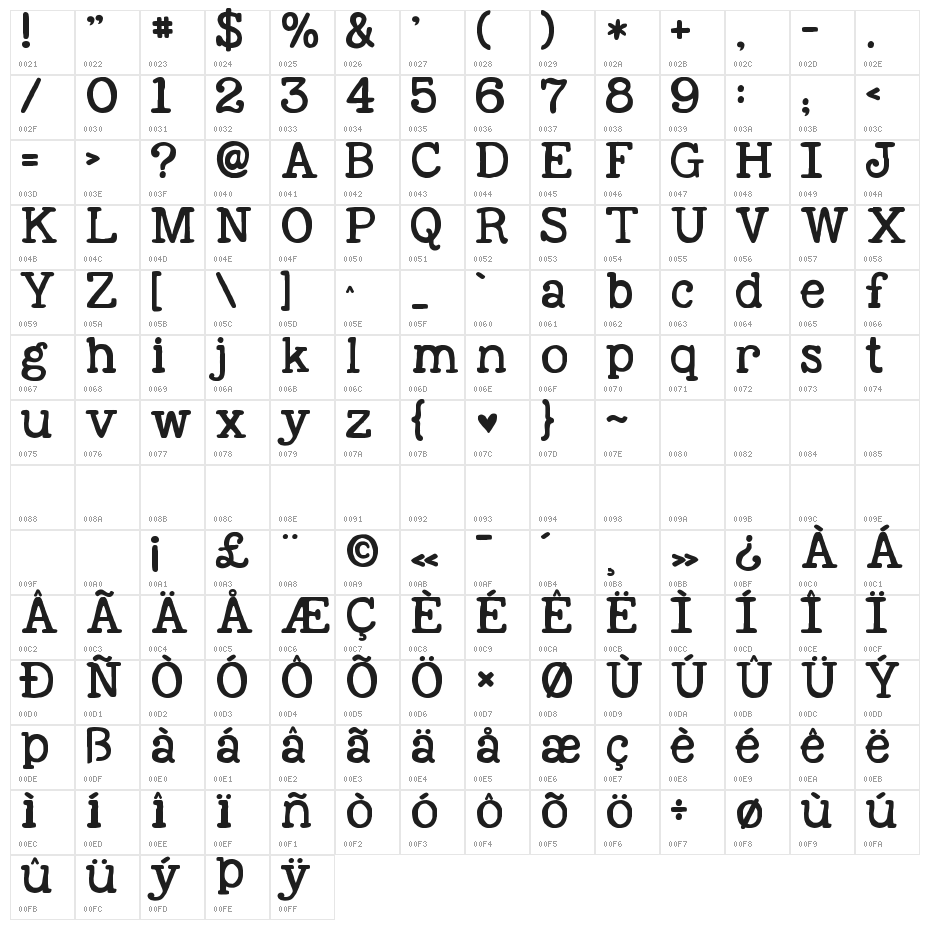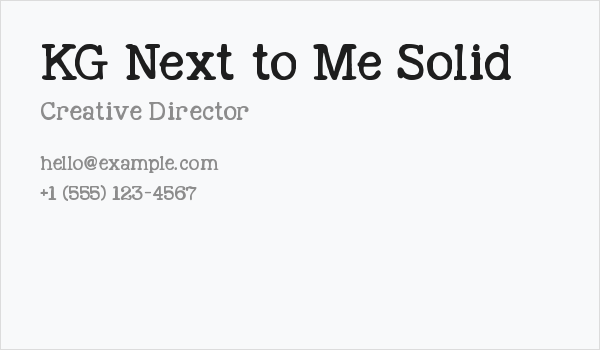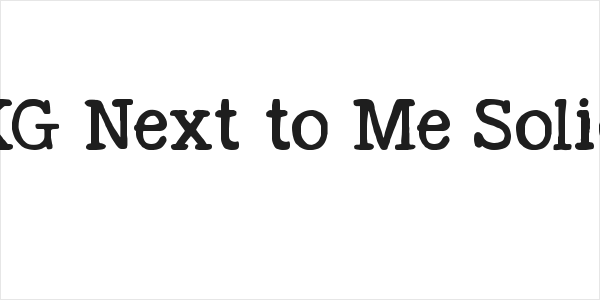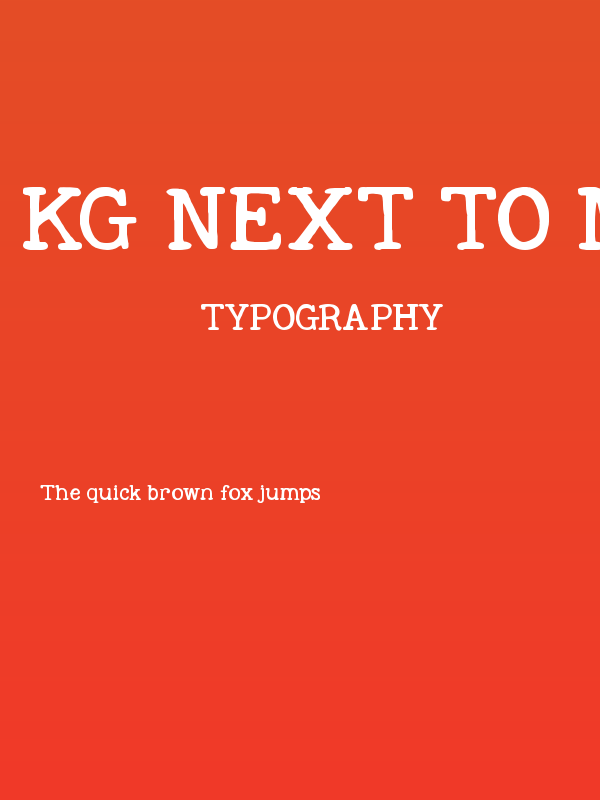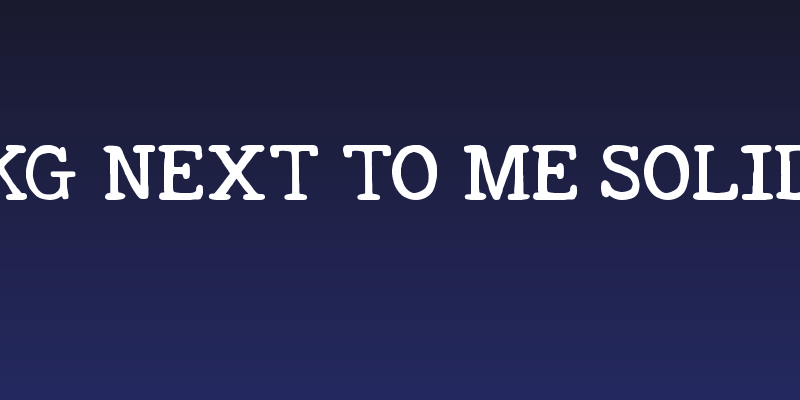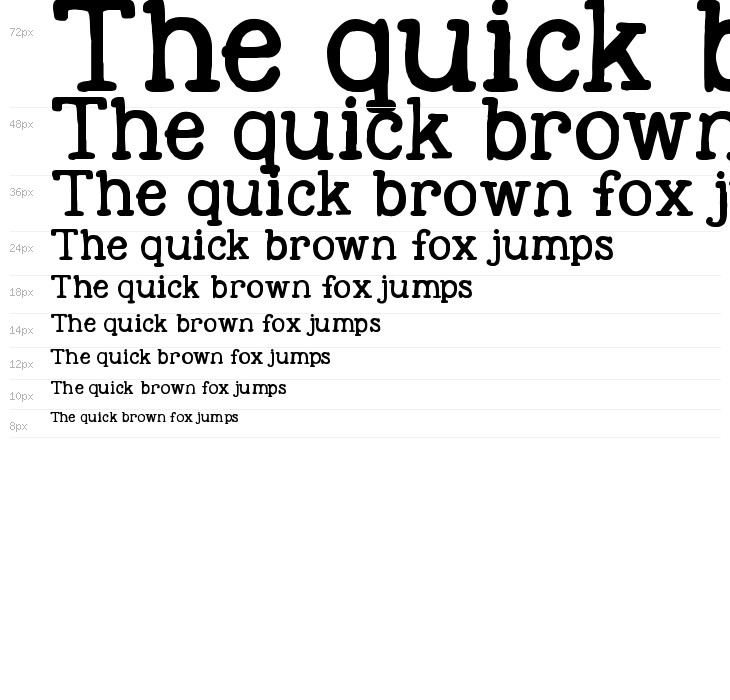
KG Next to Me Solid Font
KG Next to Me Solid Description
This font features a playful and rounded style with a touch of whimsy. The characters are bold and have a slightly uneven baseline, giving them a hand-drawn appearance. The strokes are consistent in thickness, providing a uniform look across all characters. The uppercase letters are slightly larger than the lowercase, maintaining a good balance. The numbers and special characters follow the same design, ensuring cohesiveness throughout. This font is ideal for projects that require a friendly and approachable feel.
| Proposed Projects | Ideal for children's books, playful branding, greeting cards, and informal invitations. |